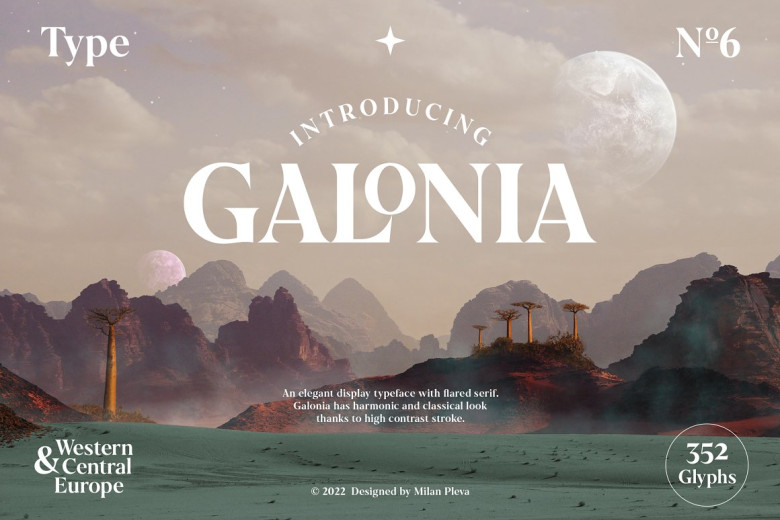
Galonia is an elegant display typeface with flared serif. It has harmonic and classical look thanks to high contrast stroke. Includes ligatures, special alternative glyphs, old style figures and case sensitive glyphs. Galonia is ideal for headlines, headers, logos, labels, packaging, postcards, presentations, magazines, invitations, etc.
Galonia Display Serif Font